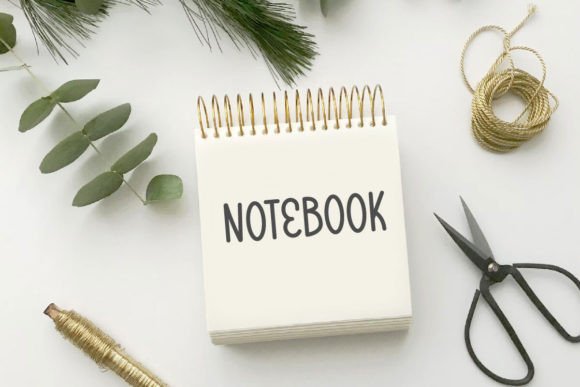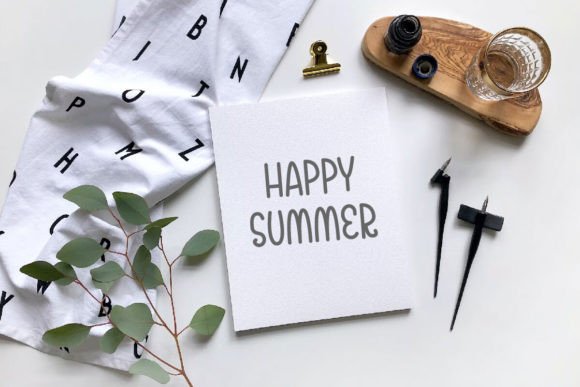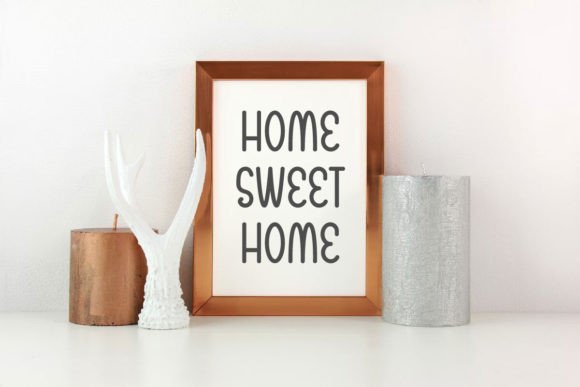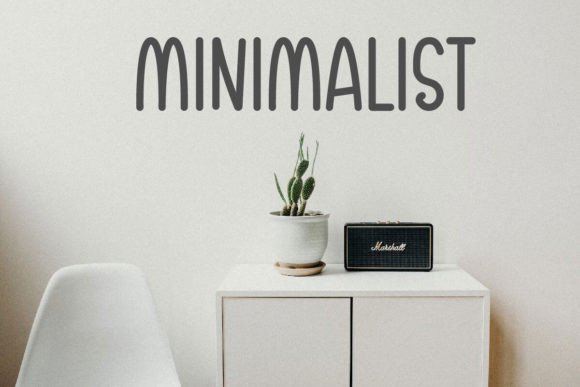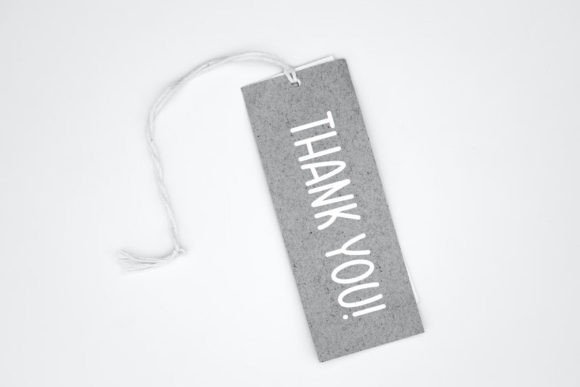
Introduction to Farmhouse Working Font Font
Fonts play a crucial role in design, and the Farmhouse Working Font font is a typeface that brings both character and versatility to any project. Whether you’re working on a branding project, a website, or a print design, the Farmhouse Working Font font offers a unique style that can elevate your work.
| 📌 Font Name | Farmhouse Working Font |
| 👤 Author | CraftedType Studio |
Farmhouse Working is a minimalist and cute display font.
this font is perfect for greeting cards, gift labels, mugs, t-shirts, weddings, farmhouse signs quotes, labels, etc Use it to create spectacular and interesting designs.
Key Features of Farmhouse Working Font Font
Why Choose Farmhouse Working Font Font?
The Farmhouse Working Font font is more than just a typeface – it’s a design tool that helps you communicate your message with style and clarity. Its unique character set and versatile design make it suitable for a wide range of applications, from elegant invitations to bold headlines.
With its carefully crafted letterforms and balanced proportions, the Farmhouse Working Font font ensures readability and visual appeal across all mediums.
What makes Farmhouse Working Font font special?
The Farmhouse Working Font font stands out with its unique design, exceptional readability, and versatility across various design applications.